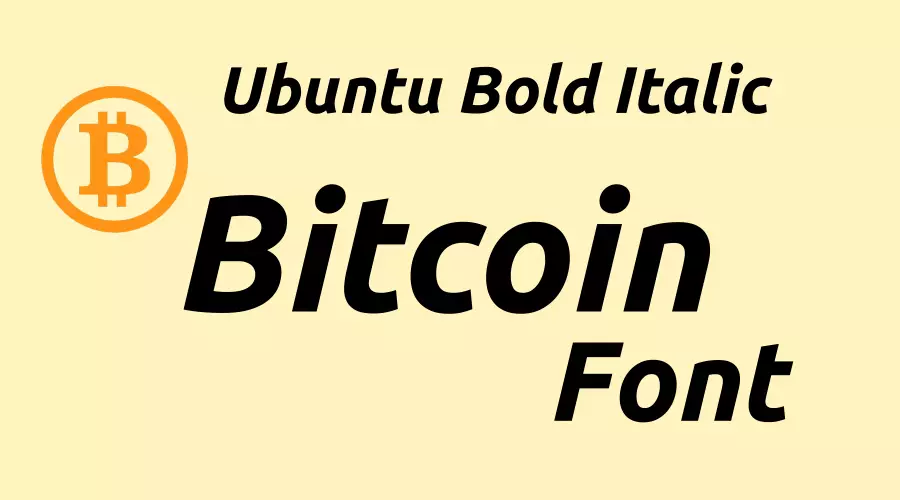
About Bitcoin Font
So, what font was used in the “Bitcoin” word in the Bitcoin logo? The word “Bitcoin” is often written using the Ubuntu Bold Italic font in promotional materials and on the official Bitcoin website. However, the font is not specifically called the “Bitcoin font” and is not used exclusively for the Bitcoin logo. But due to the popularity of Bitcoin, people search for the font used in the word “Bitcoin” and may use the keyword “Bitcoin Font” in their search. The Ubuntu Bold Italic font is a widely available font that can be used in any design project, not just ones related to Bitcoin.
Ubuntu Bold Italic is a humanist sans-serif font designed by Dalton Maag and released in 2010 as part of the Ubuntu font family. It is a thick, bold font with distinctive letterforms and sloping strokes. The italic version of the font has a unique design with diagonal stress and curving terminals. It is a versatile font that is suitable for use in a wide range of design projects. The font is available for free and is widely used in various applications and websites, including the official Bitcoin website.
Bitcoin Font at a Glance
Font Family Name Ubuntu Bold Italic
Font TypeSans Serif
Designed byDalton Maag Ltd
DescriptionThe Ubuntu Font Family are libre fonts funded by Canonical Ltd on behalf of the Ubuntu project. The font design work and technical implementation is being undertaken by Dalton Maag. The typeface is sans-serif, uses OpenType features and is manually hinted for clarity on desktop and mobile computing screens.
About Bitcoin Logo
The Bitcoin logo consists of a stylized letter “B” with two vertical lines, one on either side of the letter. For promotional purposes, they use the word “Bitcoin” in small letters with the specific symbol. This symbol has become widely recognized as the symbol for Bitcoin, much like the dollar sign ($) is recognized as the symbol for the United States dollar.
The symbol is represented in the Unicode standard as U+20BF and belongs to the Currency Symbols block. It is classified as a currency symbol and has the European Terminator bidirectional class. The currency code for Bitcoin is XBT, although it is currently an unofficial code according to the ISO 4217 standard. The unit name BTC is also commonly used to represent one bitcoin, but it violates ISO 4217 because it begins with “BT,” the country code of Bhutan. There is a formal application by the Financial Standards Working Group of the Bitcoin Foundation in progress to request ISO 4217 standard support for XBT.
What font does Bitcoin use?
Ans: The Bitcoin logo uses the Ubuntu Bold Italic font for the word “Bitcoin.” This font is a humanist sans-serif typeface designed by Dalton Maag and released in 2010 as part of the Ubuntu font family.